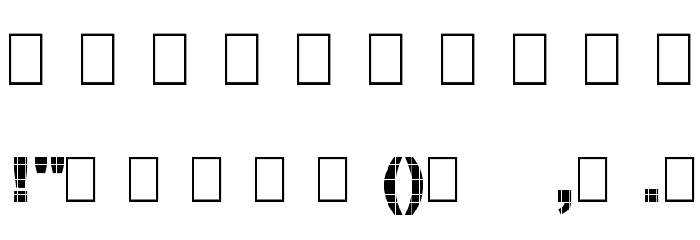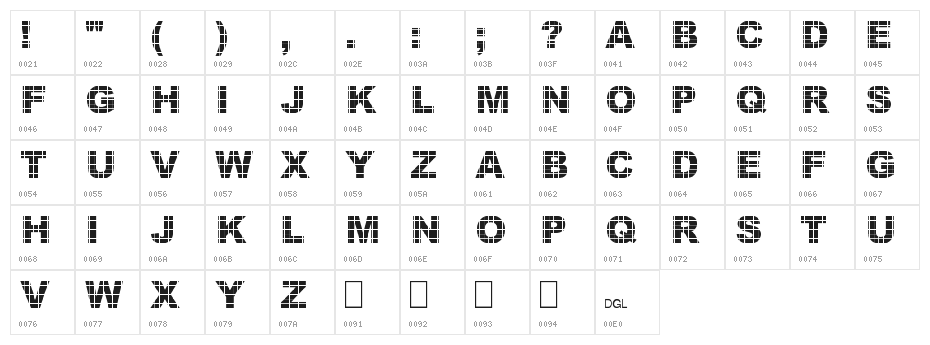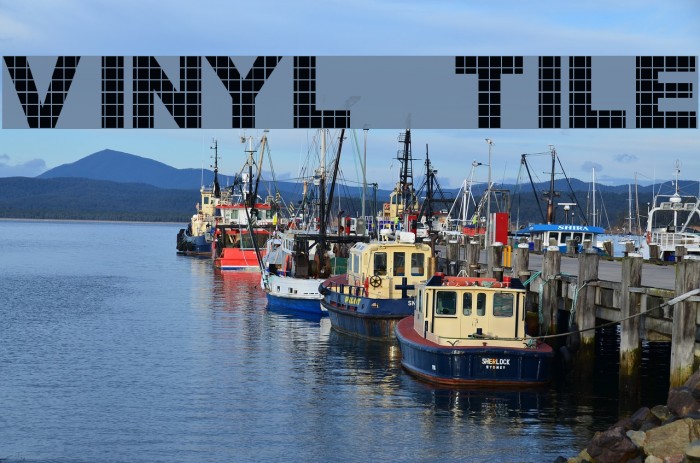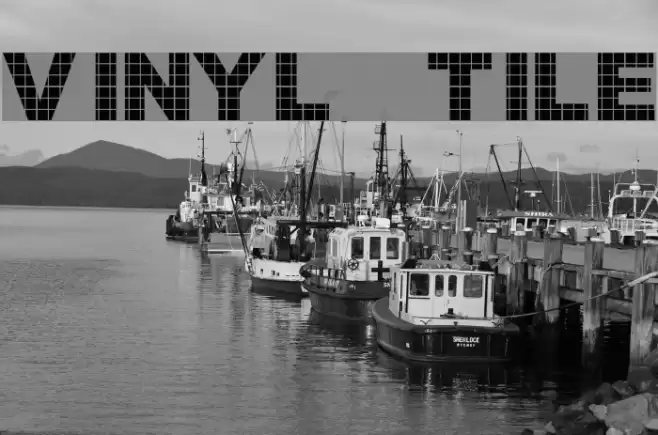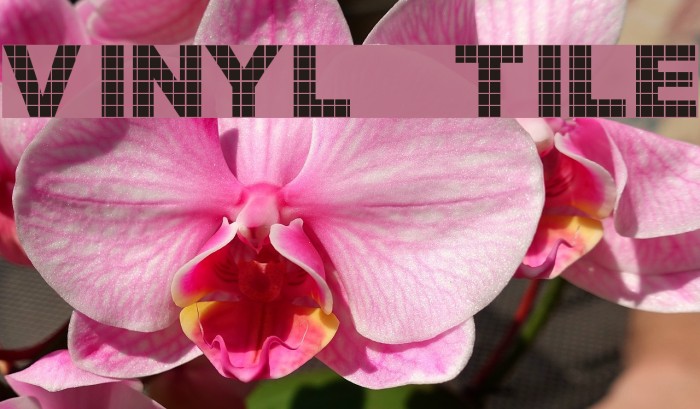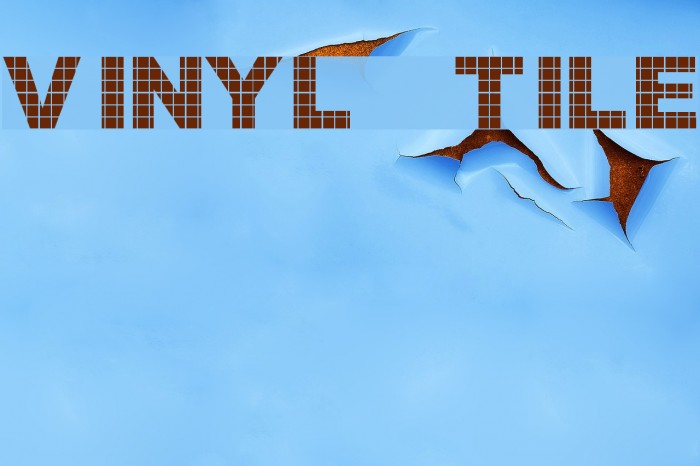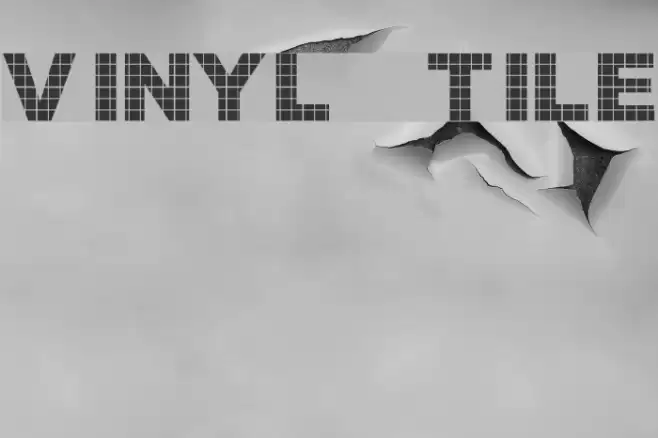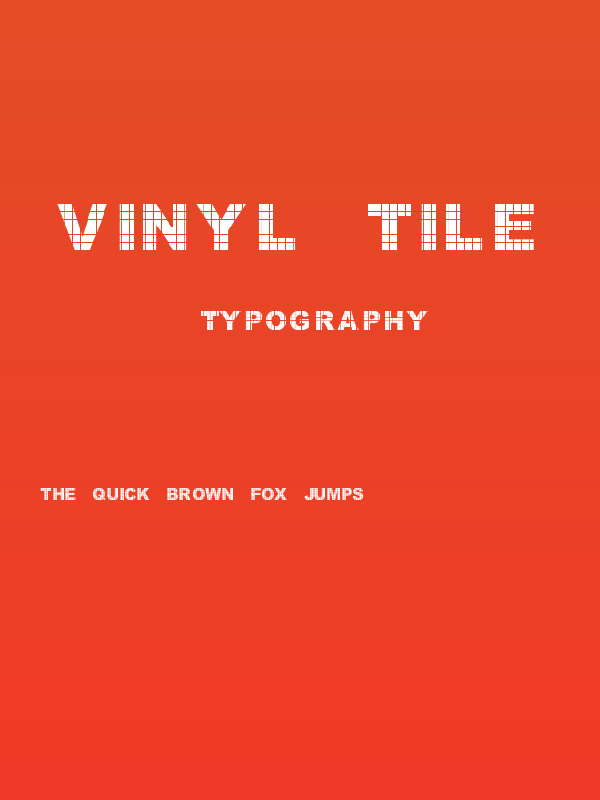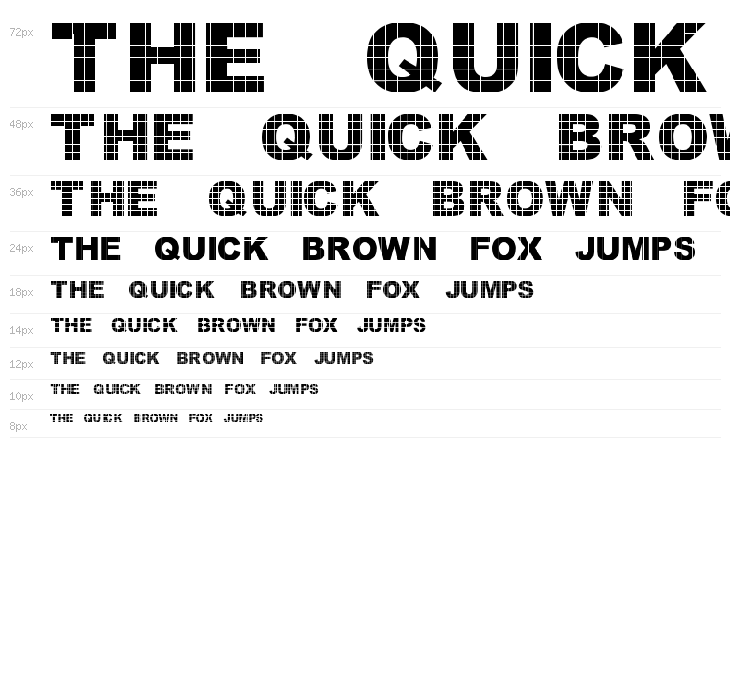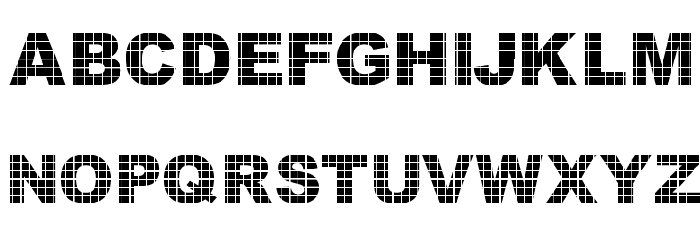
Vinyl Tile Font
Vinyl Tile Description
This font features a unique and bold design, characterized by a grid-like pattern that fills each letter. The uppercase and lowercase letters maintain a consistent geometric style, with each character segmented into smaller squares, creating a tiled effect. This design gives the font a modern and industrial appearance, making it stand out in any application. The characters are evenly spaced, ensuring readability while maintaining the distinct tiled aesthetic. The font includes a full set of uppercase and lowercase letters, numbers, and a selection of special characters, all adhering to the same grid pattern.
| Proposed Projects | Ideal for branding, posters, album covers, and any project requiring a bold, modern aesthetic. |